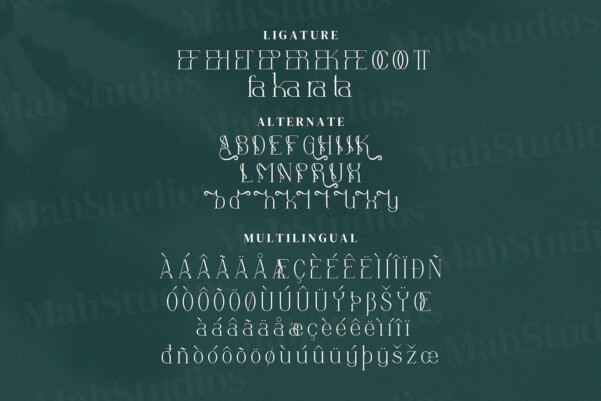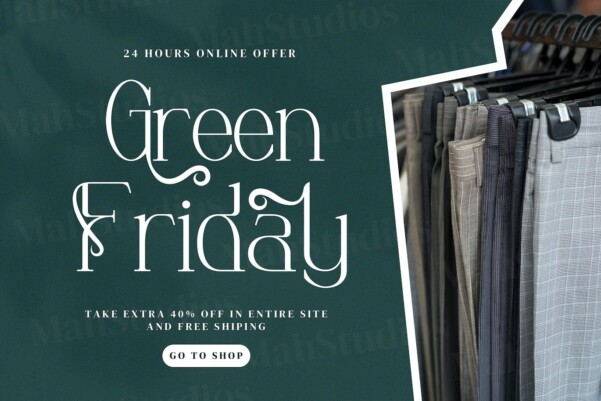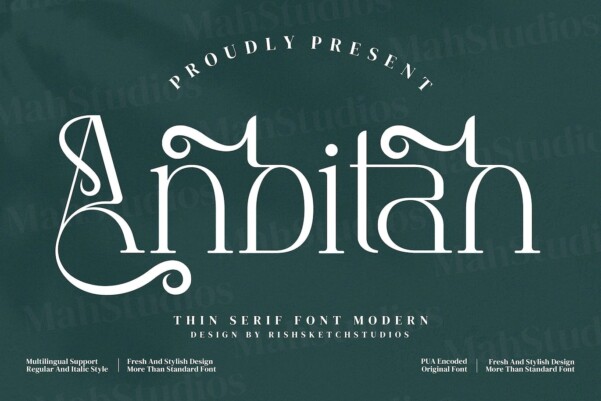
Anbitah Font
Anbitah Font – Fresh and Stylish Serif Font, from MAH Studios, is a premium Serif Font, suitable for any projects such as: logos, branding projects, homeware designs, product packaging, mugs, quotes, posters, shopping bags, t-shirts, book covers, name card, invitation cards, greeting cards, label, photography, watermark, special events, and all your other luxury projects that need a premium signature taste.